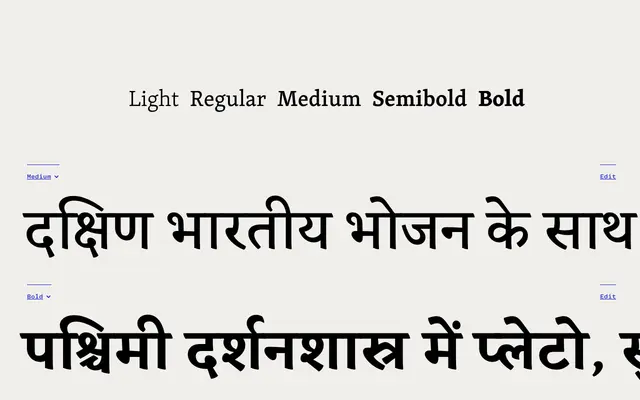
Skolar Devanagari
Rosetta · Vaibhav Singh · 2012
A Devanagari text serif by Vaibhav Singh, designed from the ground up for academic and professional publishing in Hindi, Marathi, Nepali, Sanskrit and over 30 regional Indian languages.
Designed by Vaibhav Singh with consultancy from Fiona Ross, Skolar Devanagari draws on historical and contemporary letterforms to bring the scholarly credibility of the Skolar family to Indian-script typography. The five weights are equipped with an expansive set of consonant conjuncts, contextual matra variations and language-specific alternates for Marathi, Nepali and Sanskrit, as well as fitted punctuation and numerals. It is intended for use in print and on screen, from rigorous academic treatises to editorial and branding work, and complements Skolar PE for Latin, Cyrillic and Greek.
Skolar Devanagari is a text serif designed for academic and editorial use in the Devanagari script, grounded in traditional Devanagari type anatomy with humanist warmth; it pairs with the Latin/Cyrillic/Greek Skolar PE family.